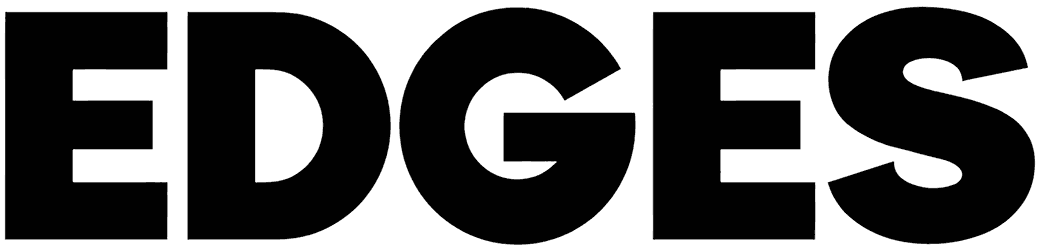
Edges Font
Edges font has that sharp display attitude where the name basically tells the truth before the preview even loads. The letters feel angular, bold, and built for impact, giving your headline a cut-metal kind of confidence that works beautifully when soft typography would ruin the whole mood.
Use it for action posters, gaming titles, sports graphics, tech branding, streetwear prints, or album covers that need a harder visual punch. Pair this sans serif font with chrome details, harsh shadows, neon accents, cracked textures, or oversized type, and your layout starts looking like it could slice through the background.